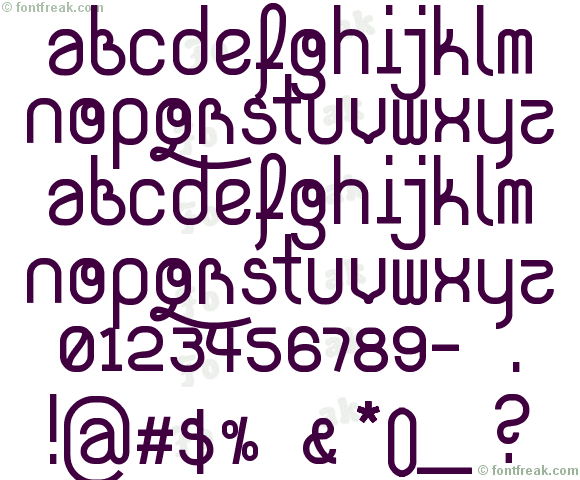
quiñók
About Quinok
Quinok, designed by Bran in 2007, is a striking decorative font that captivates with its unique visual flair. This freeware typeface combines whimsical curves with sharp angles, creating a distinctive style that is both playful and sophisticated. The font features moderate stroke weights and a balanced contrast that ensures legibility while maintaining an artistic presence. The spacing is thoughtfully crafted, allowing for smooth readability in various applications. Decorative elements, such as the exaggerated loops and fluid lines, give Quinok its character, making it an excellent choice for projects that require a touch of creativity.
Quinok is particularly well-suited for wedding invitations, where its elegant yet quirky style can add a memorable charm to the occasion. It also shines in the realm of movie posters, where its bold design can capture attention and convey emotion effectively. Restaurant menus can benefit from Quinok's artistic touch, providing a unique aesthetic that enhances the dining experience. Additionally, this font is ideal for branding projects, especially for businesses looking to convey a modern and trendy image. Small business owners and graphic designers alike will find Quinok a versatile tool in their creative arsenal.